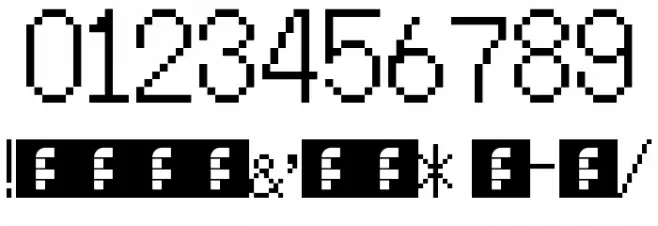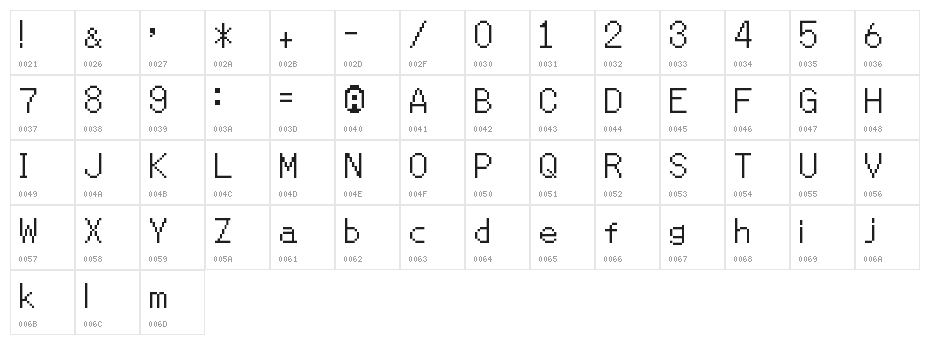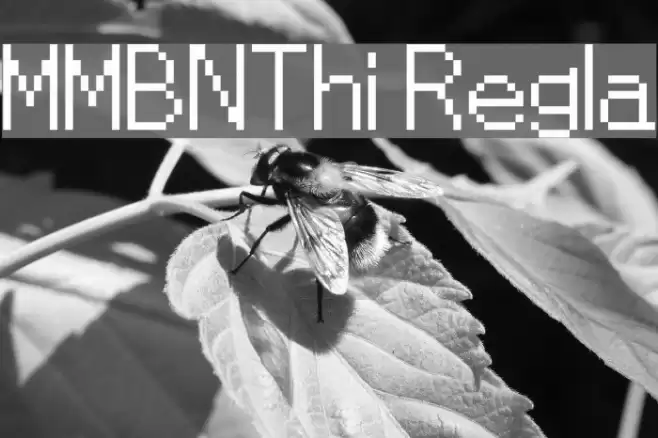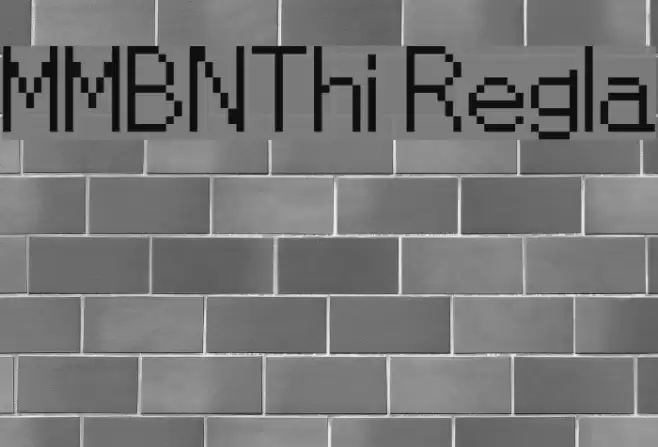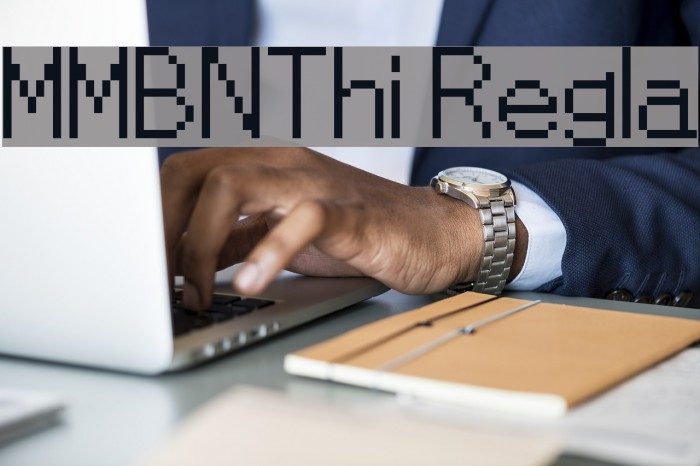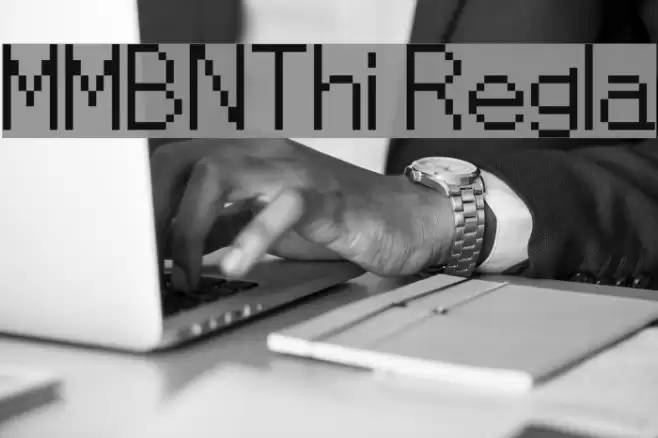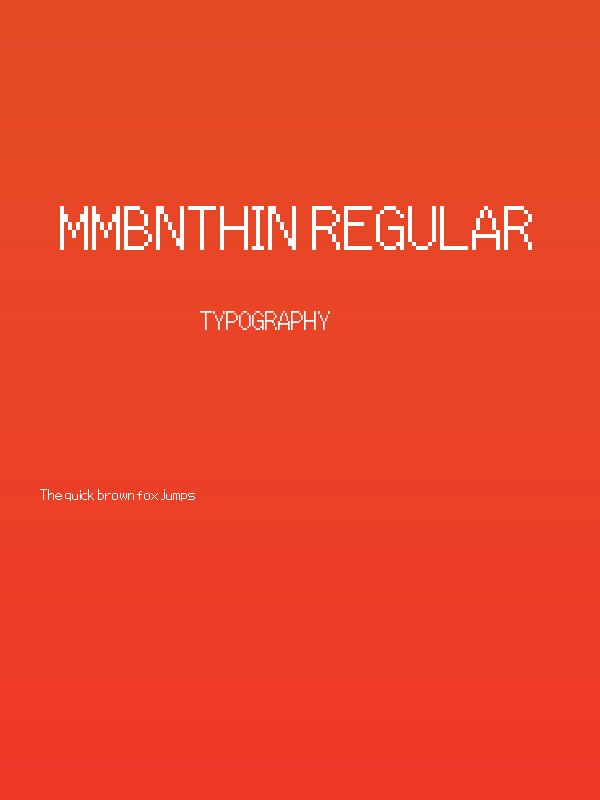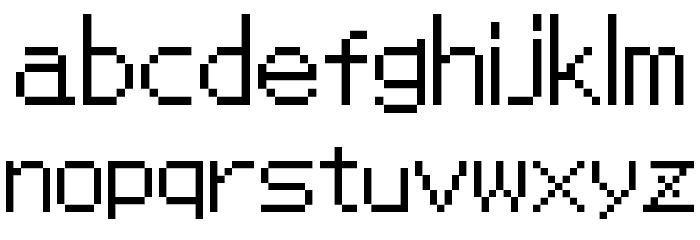
MMBNThin Regular Font
MMBNThin Regular Description
This font features a pixelated, grid-like design reminiscent of classic video game typography. Each character is composed of small, square blocks that create a digital, retro aesthetic. The uppercase and lowercase letters maintain a consistent height, contributing to a uniform appearance. Numbers and special characters follow the same pixelated style, ensuring visual coherence across all elements. The font's simplicity and geometric structure make it highly legible, even at smaller sizes. Its nostalgic feel is perfect for projects that aim to evoke a sense of early digital technology or retro gaming.
| Use Case | Logos, Headlines, Digital Art |
| Proposed Projects | Ideal for retro video game designs, digital art projects, tech-themed posters, and nostalgic branding. |